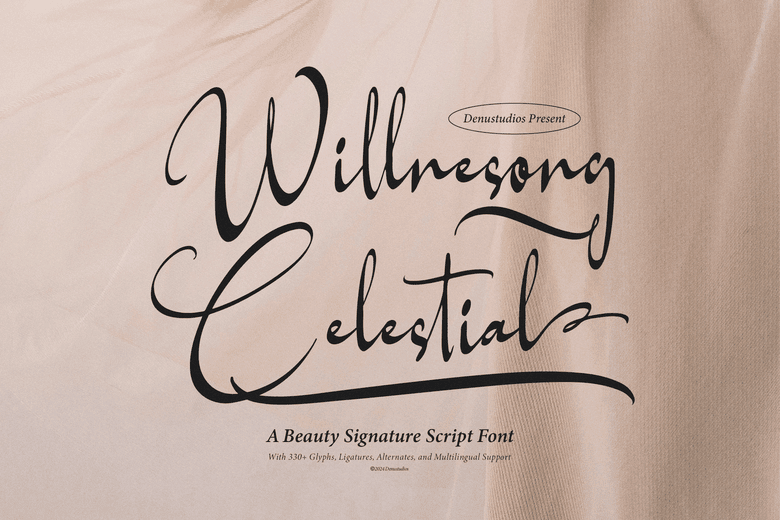
Willnesong Celestial Font
Willnesong Celestial is a signature script font that brings beauty and elegance to your work. Its smooth curves and stylish ligatures make it a great choice for wedding invitations, branding, luxury projects, and personal signatures.
With support for multiple languages and a wide range of glyphs, this font is flexible enough for many design projects. Its classic style adds a special touch to any work.
Willnesong Celestial Signature Script Font